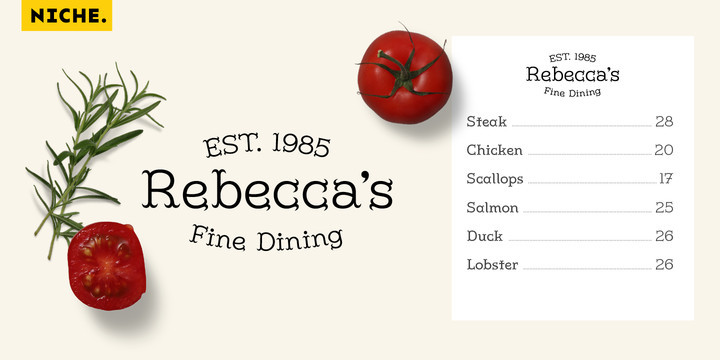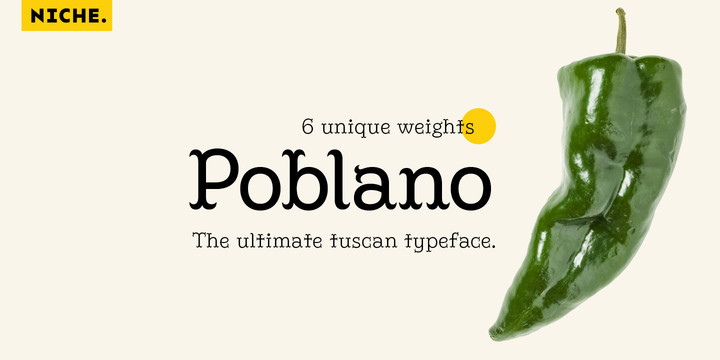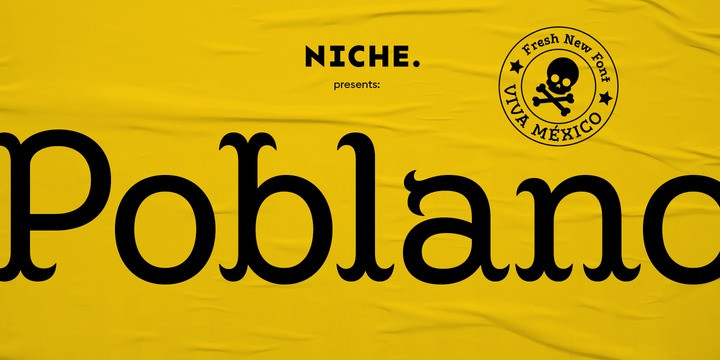
Poblano Font
Poblano is a masterfully designed flared typeface, inspired by Gothic Tuscan that incorporates an aura of modern fun and classic southwest whimsy. With serifs that embody the beautiful, natural curve of the Poblano Pepper, it captures the pepper’s essence and attitude of having the perfect amount of piquant heat.
Perfectly suited for menus, headlines, and logos, Poblano will be the ideal garnish to complete and elevate your food, rustic, grunge and hipster themed designs.